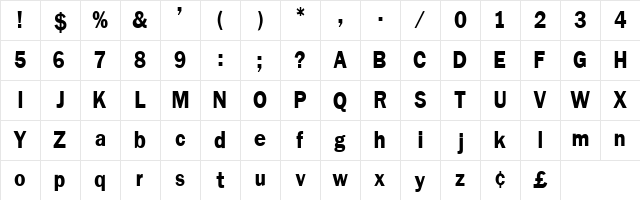
PatellaCond Normal
PatellaCond Family
Design Context for PatellaCond
PatellaCond is a composed and adaptable typeface that performs quietly and consistently across a wide range of design contexts. Its narrow stance lets it pack a punch even in space-constrained designs.